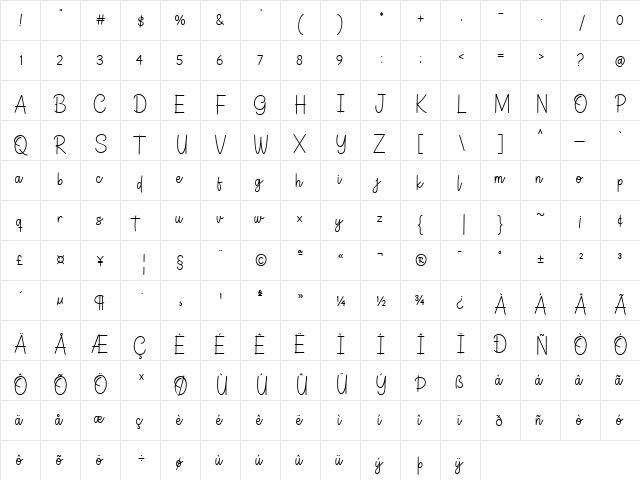
Germaint Regular
Design Context for Germaint Typeface
Germaint is a composed and adaptable typeface that performs quietly and consistently across a wide range of design contexts.